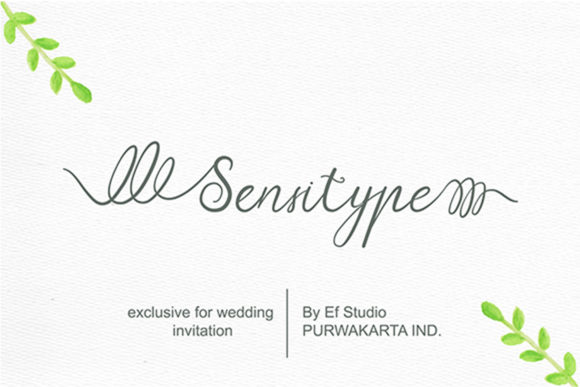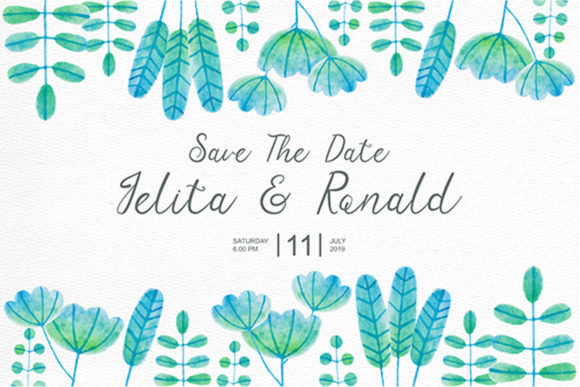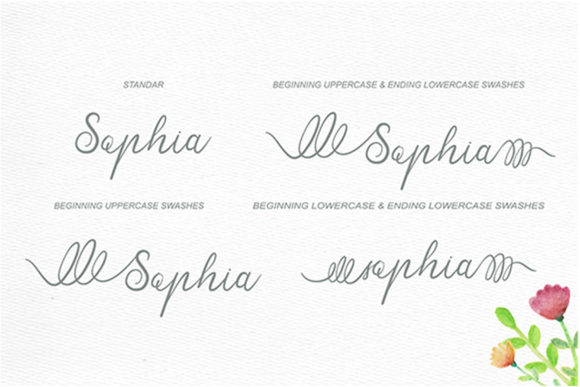
About Sensitype Font
The Sensitype is a beautiful handwritten script. It’s made wholeheartedly, combining watercolor and unique lettering. It was made specially for wedding invitations, but can also be used for adding a luxurious feel to your designs.